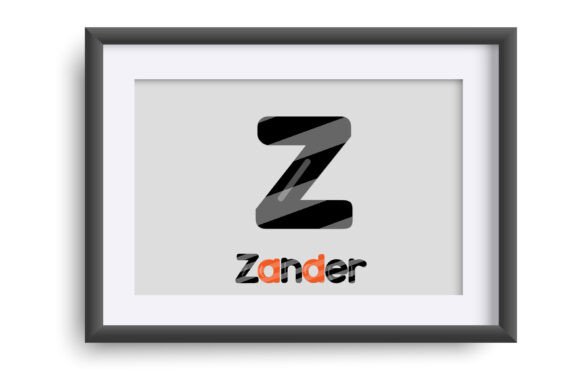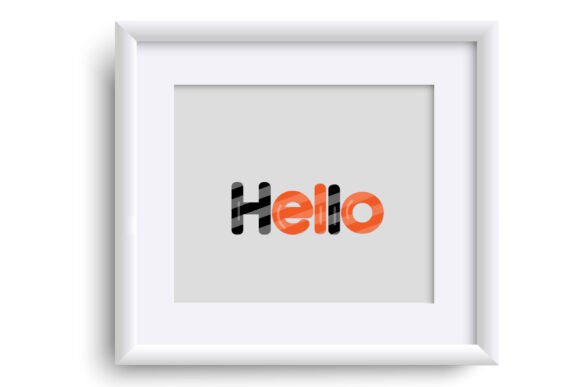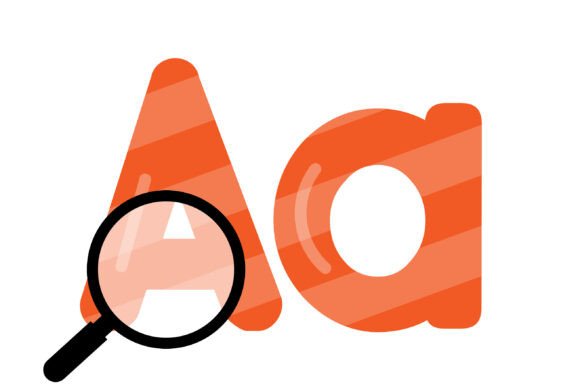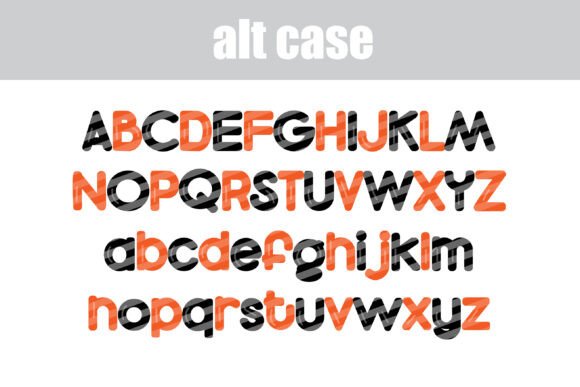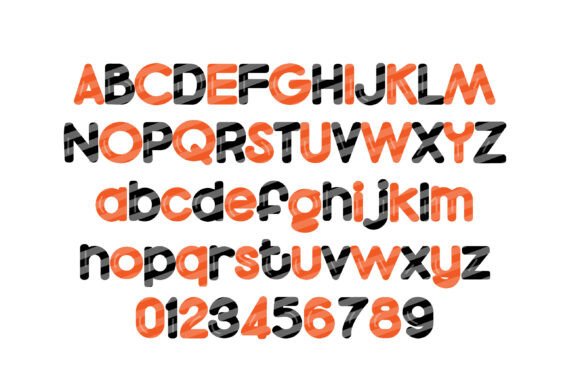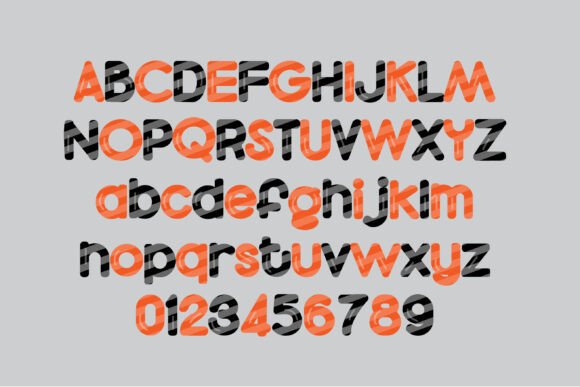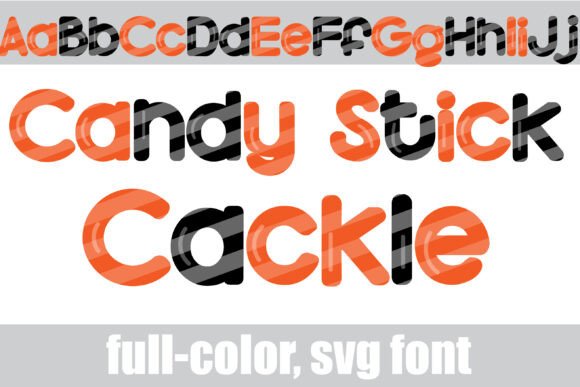
Candy Stick Cackle Font: A Spooky Sweet Treat for Designers and Crafters
Are you looking for a font that’s as sweet as it is spooky? Look no further than the Candy Stick Cackle Font! This full-color font features candy stick lettering in a Halloween color palette that’s sure to add a touch of whimsy to your designs. In this article, we’ll take a closer look at the Candy Stick Cackle Font, its features, and how to use it in your design projects.
What is the Candy Stick Cackle Font?
The Candy Stick Cackle Font is a unique and eye-catching font that features candy stick lettering in a range of bright, bold colors. The font is perfect for designers and crafters who want to add a touch of Halloween spirit to their projects. With its colorful and playful design, the Candy Stick Cackle Font is sure to stand out from the crowd.
Key Features of the Candy Stick Cackle Font
The Candy Stick Cackle Font has several key features that make it a must-have for designers and crafters. Some of its key features include:
- Full-color font: The Candy Stick Cackle Font is a full-color font, which means that it features a range of bright, bold colors that will add a touch of whimsy to your designs.
- Halloween color palette: The font features a Halloween color palette that’s perfect for designers and crafters who want to create spooky and sweet designs.
- Alt version: The font also includes an alt version that contains additional colors of all the letters, which can be accessed through your system’s character map.
- Use it for titles and displays: The Candy Stick Cackle Font is perfect for titles, displays, and posters. Its colorful design makes it a great choice for eye-catching headings and titles.
- Combine it with other fonts: The Candy Stick Cackle Font can be combined with other fonts to create a unique and interesting design. Try pairing it with a bold, sans-serif font for a striking contrast.
The Candy Stick Cackle Font is a fun and festive font that’s perfect for designers and crafters who want to add a touch of Halloween spirit to their projects. With its colorful design and compatibility with a range of programs, it’s a great choice for titles, displays, and posters. Whether you’re a seasoned designer or a crafter just starting out, the Candy Stick Cackle Font is sure to be a hit!
- What is the Candy Stick Cackle Font?
- The Candy Stick Cackle Font is a full-color font that features candy stick lettering in a Halloween color palette.